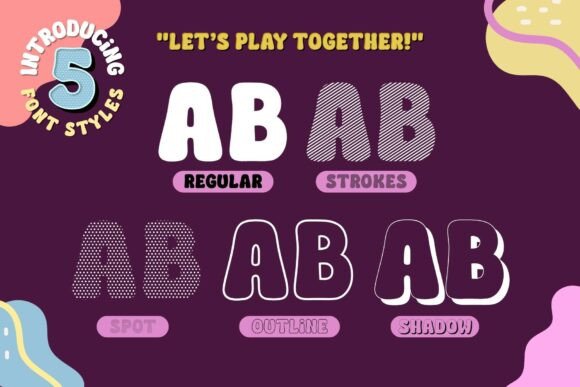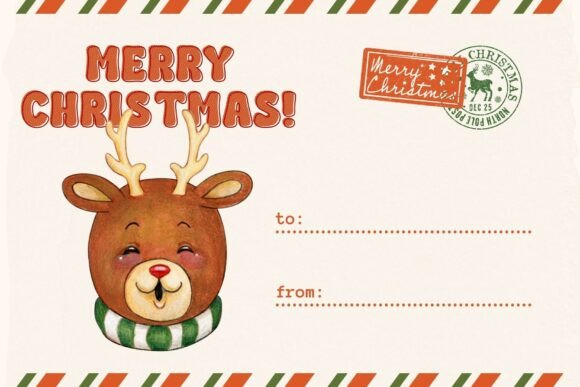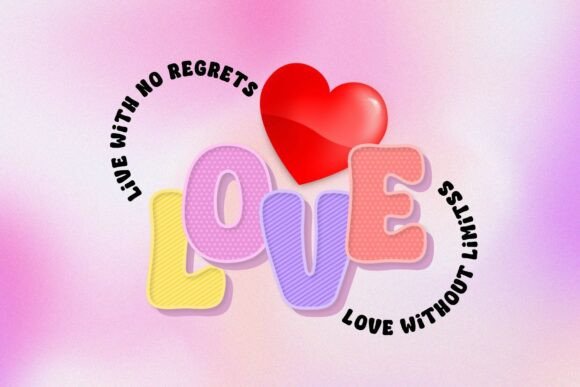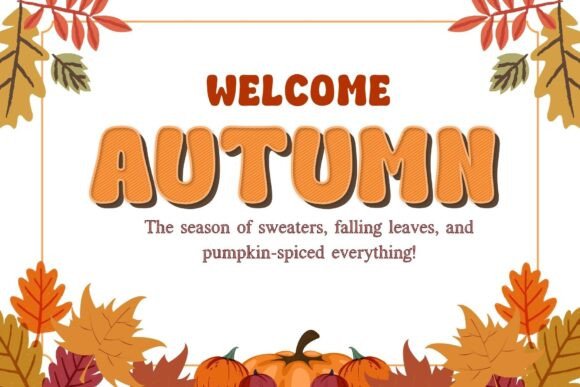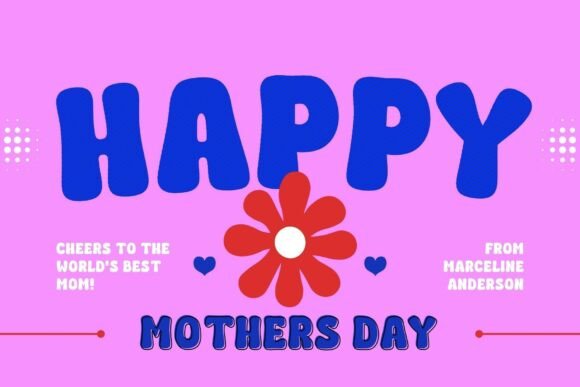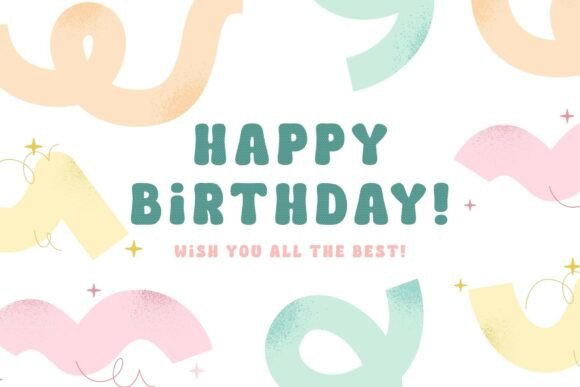
The Ultimate Design Solution: Fox Kind Font
Have you ever been in the middle of a design project, and suddenly, you just can’t seem to find the right font? I know I have! It was a sunny Saturday morning when I received an urgent message from a client asking for a fun and playful font for their new children’s product line. The deadline was tight, and I had to act fast. That’s when I stumbled upon the amazing Fox Kind Font.
A Personal Review: What I Love About Fox Kind Font
Fox Kind Font is a game-changer for any designer, crafter, or creative hobbyist looking to add a touch of warmth and joy to their projects. Here are some things I love about this font:
- ✨ Fun and friendly cartoon-style display font that’s perfect for kids’ products, posters, invitations, and social media graphics.
- ✅ 5 unique styles to mix and match, creating endless possibilities for eye-catching designs.
- 🎉 Rounded shapes and playful vibe that instantly bring a smile to your face.
While Fox Kind Font is an excellent choice, there are a few minor things to keep in mind:
- 🤔 Limited use for formal or professional projects, as it’s primarily designed for creative and playful applications.
- ⚠️ Some characters may not work well at very small font sizes, so it’s best to use it at larger sizes for optimal results.
The Story Behind Fox Kind Font
Fox Kind Font was designed with the intention of spreading joy and warmth through typography. The designer, inspired by childhood memories of playing with friends and exploring nature, aimed to create a font that captures the essence of playfulness and friendliness. With its rounded shapes and lively vibe, Fox Kind Font is sure to bring a smile to your face and inspire your creativity.
| What type of projects is Fox Kind Font best suited for? | Fox Kind Font is perfect for children’s products, posters, invitations, social media graphics, and creative branding projects that require a fun and playful touch. |